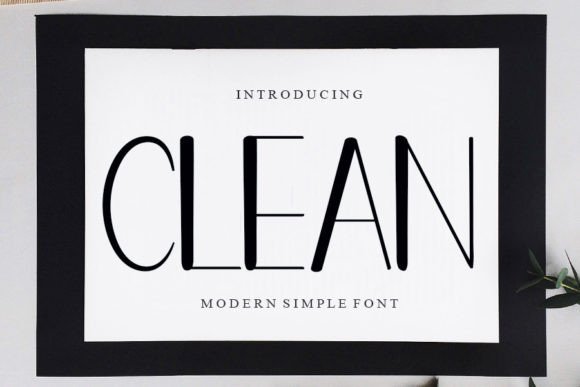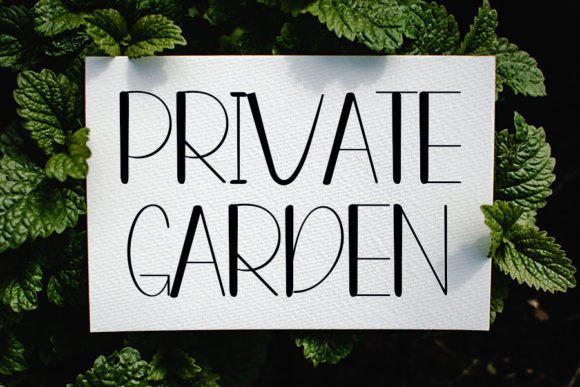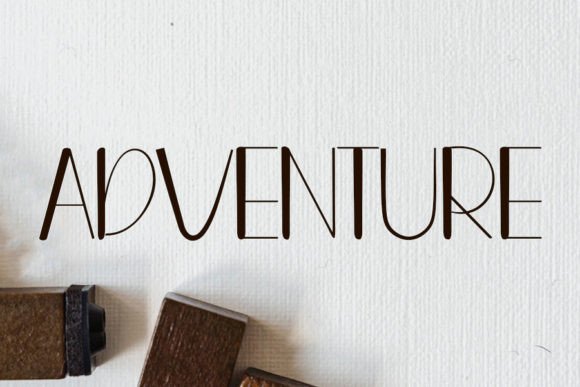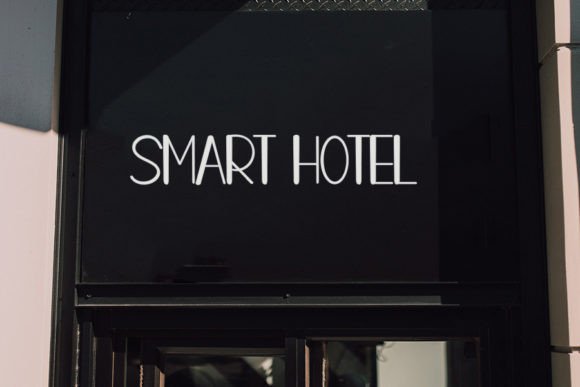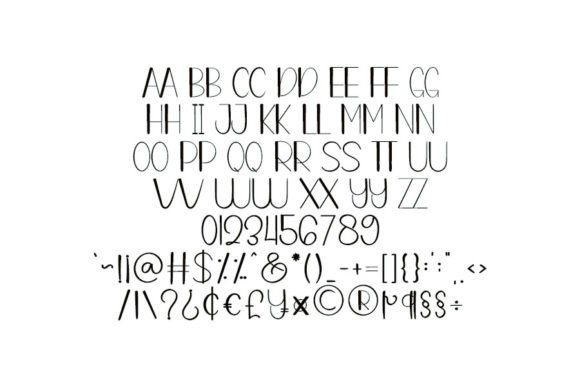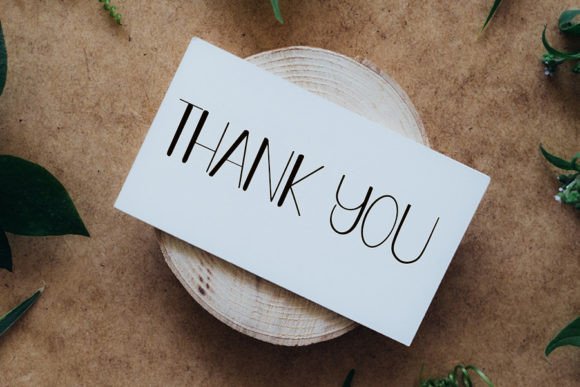
Clean Font
What Is Clean Font?
Clean is a trendy handwritten font that blends the elegance of classic calligraphy with a fresh, modern look. With graceful curves and balanced shapes, this font instantly elevates any design. Because it’s crafted with precision, Clean is ideal for both personal and professional use.
You’ll love how effortlessly it transforms your ideas into polished, sophisticated designs.
Clean is a versatile typeface suitable for a variety of creative projects. For example, it works beautifully in wedding invitations. Whether you’re designing formal stationery or casual save-the-date cards, Clean adds a refined, timeless feel.
It also shines in logos and branding. If you want your brand to appear professional and stylish, this font helps you create a memorable identity.
Additionally, Clean is an excellent choice for social media graphics. Whether you’re posting quotes, announcements, or promotions, its elegant strokes make your content stand out.
You can also use it on packaging and labels to give your products a premium, sophisticated touch. From event signage and greeting cards to marketing materials and custom merchandise, Clean adapts seamlessly to any project.
Why Should You Choose Clean Font?
There are plenty of reasons to add Clean to your font collection. First, it remains perfectly legible at any size. Whether you use it for large headlines or small captions, each letter stays crisp and clear.
It also pairs well with modern sans-serif or serif fonts, making it easy to build clean, cohesive layouts.
Designers love how polished and professional it looks right out of the box, saving time while achieving high-quality results.
Clean Font adds sophistication, clarity, and modern elegance to every project. For example, if you want your designs to feel professional and inviting, this font makes it easy.
Even minimalist layouts come to life with Clean’s smooth lines and balanced details. Whether you’re designing branding, packaging, or social media posts, your work will look refined and cohesive.
Using a premium handwritten font also shows your commitment to quality, helping build trust and leaving a positive impression.
Clean Font is more than just a typeface—it’s a creative asset that adds elegance and style to any project. From wedding invitations and logos to packaging and digital graphics, this font adapts effortlessly and elevates your work.